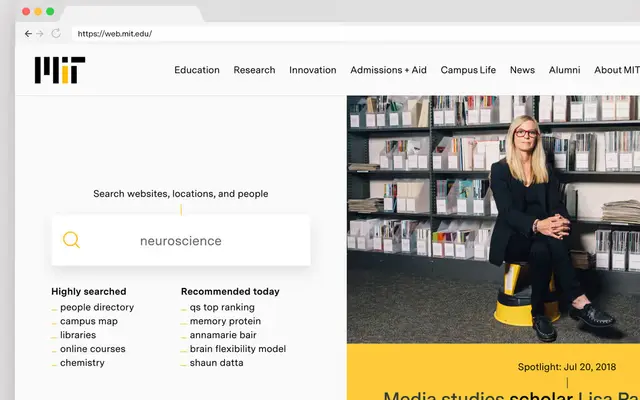
Messina Sans
A neo-grotesque sans in the Swiss modernist tradition, offered across three subfamilies covering normal, condensed and monospaced variants in eight weights each.
Built on the conventions of the International Typographic Style, Messina Sans offers clean, evenly spaced letterforms across eight weights from Hairline to Black, each with matching italics. The family extends into Messina Sans Condensed and Messina Sans Mono, and is available as both static OTF and variable TTF files. Latin script coverage is broad, reaching most European and American languages as well as Vietnamese.
Explicitly rooted in the 20th-century International Typographic Style, with clean construction and optical neutrality characteristic of neo-grotesque sans-serifs in the Swiss modernist tradition.